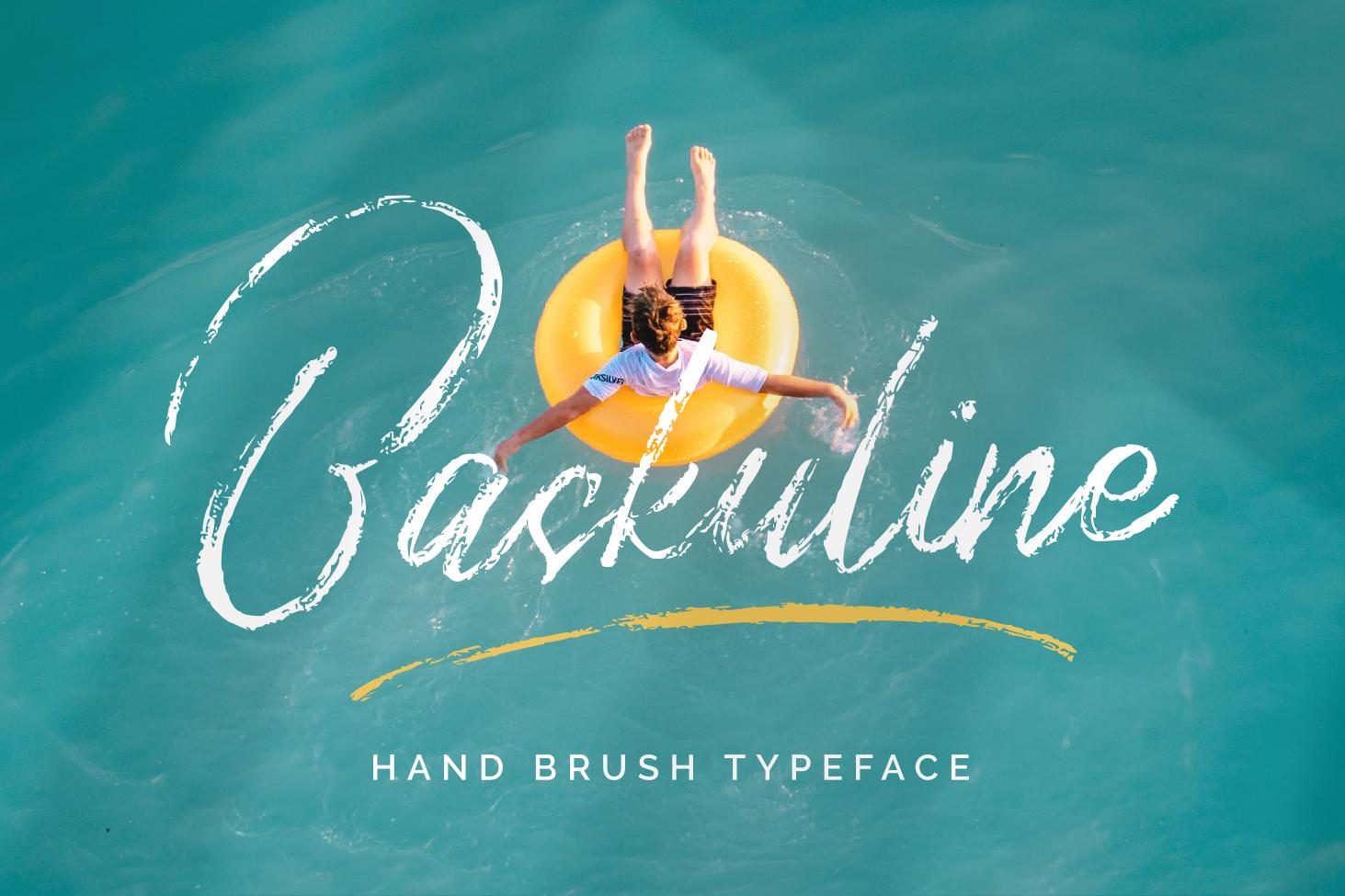
Baskuline is a modern and coarse handwritten font with consistent texture and a beautifully flowing style. It is suitable for various projects ranging from wedding invitations to social media posts, branding, or more!